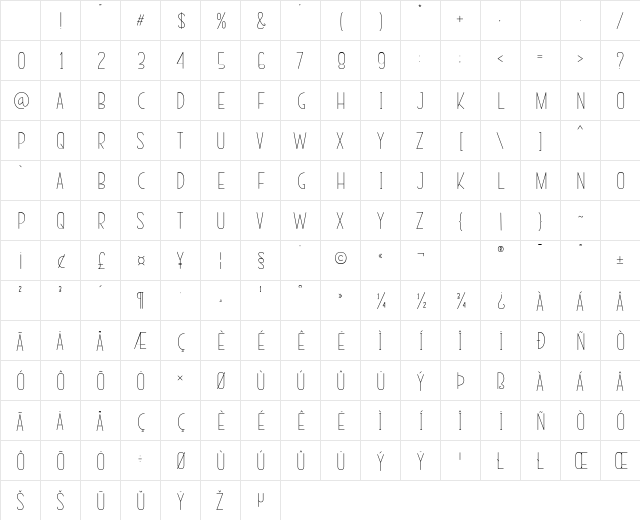
Complete Today Easter Regular glyph index. Displaying only characters natively supported by Today Easter Regular font.
Today Easter is a composed and adaptable typeface that performs quietly and consistently across a wide range of design contexts.